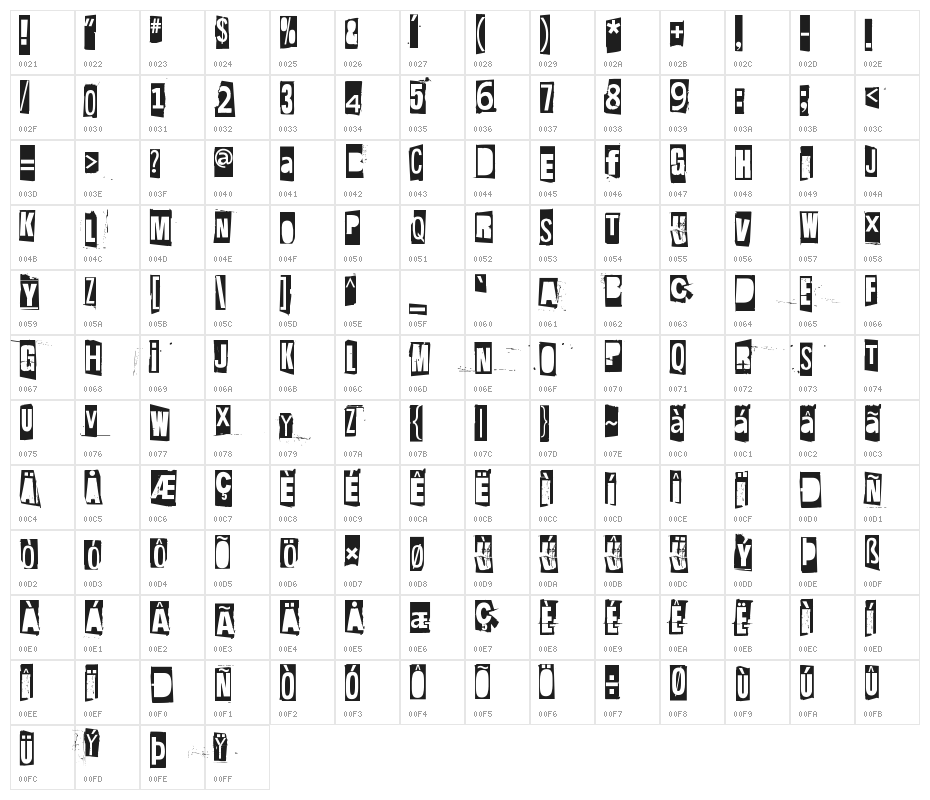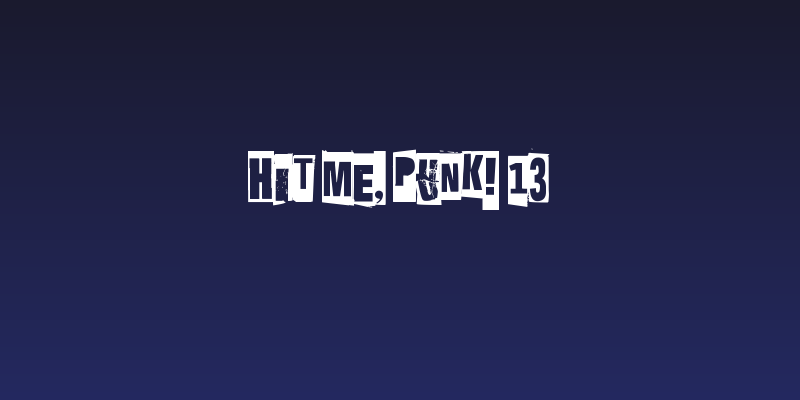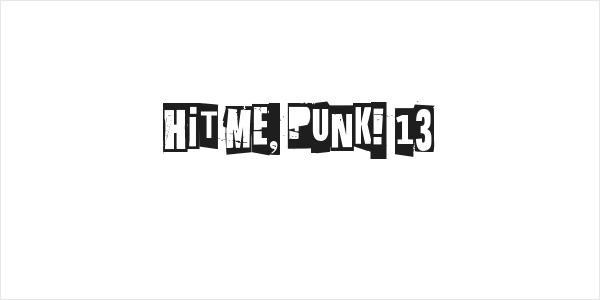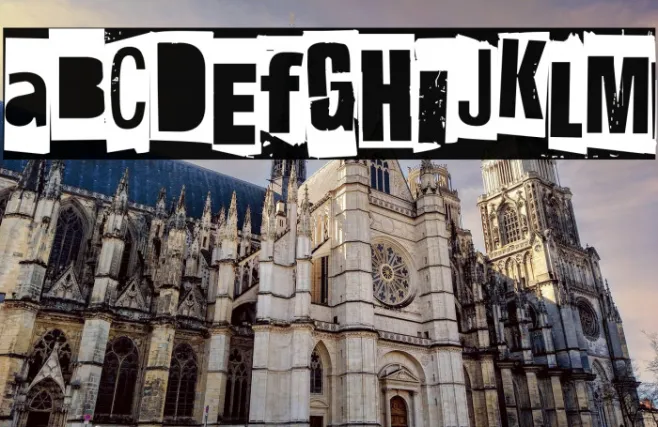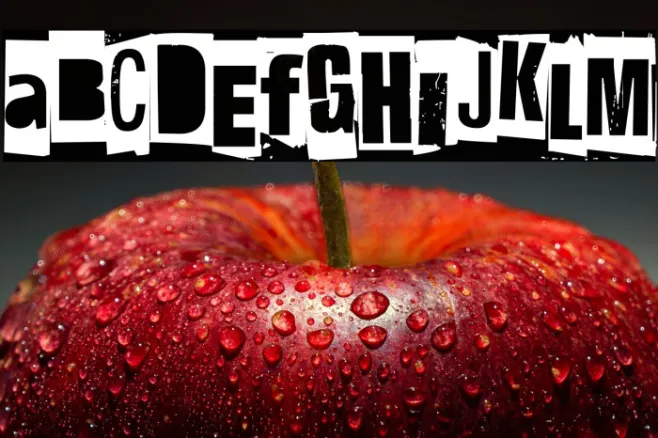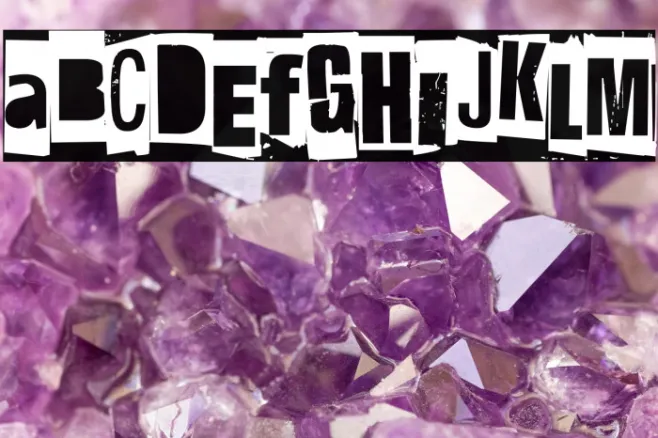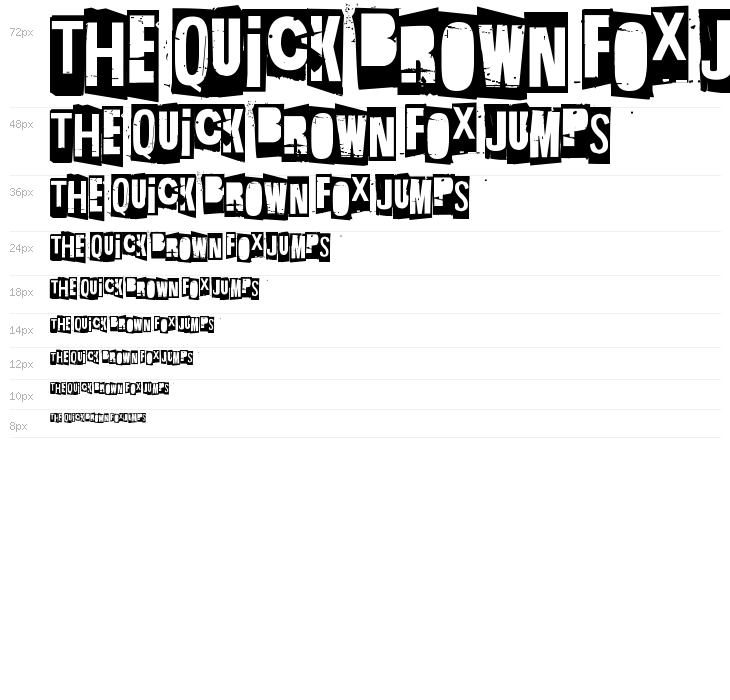
Hit me, punk! 13 Font
Hit me, punk! 13 Description
This font exudes a rebellious and edgy vibe, reminiscent of punk rock aesthetics. Each character appears as if it has been cut out from different sources and pasted together, creating a collage-like effect. The letters are bold and irregular, with varying heights and widths, contributing to a chaotic yet artistic feel. The distressed texture adds a grunge element, making it perfect for designs that require a raw and unpolished look. The font's unique style is ideal for projects that aim to capture attention and convey a sense of nonconformity.
| Overall Style | Punk, Grunge, Edgy |
| Use Case | Headlines, Posters, Logos |
| Proposed Projects | Album covers, concert posters, streetwear branding, rebellious-themed graphics. |